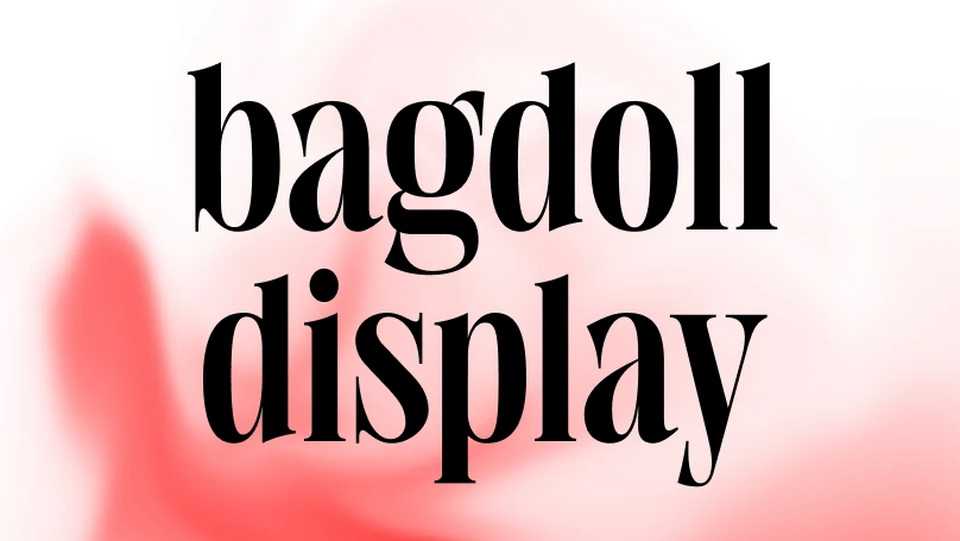
Download Bagdoll Display font, a bold, editorial serif typeface with an elegant style. Bagdoll Display feels at home in magazines, display sizes, with big spaces around it.
Designer: Lőrinc Balogh